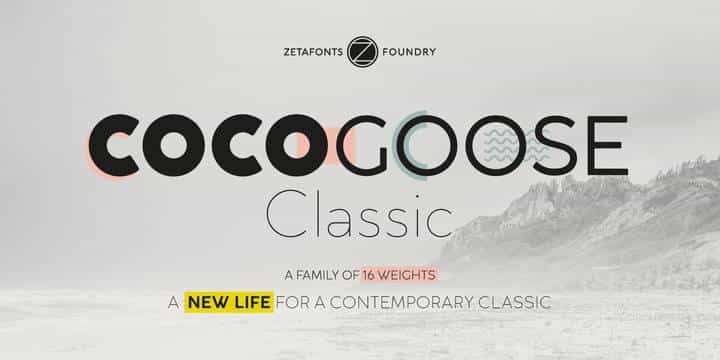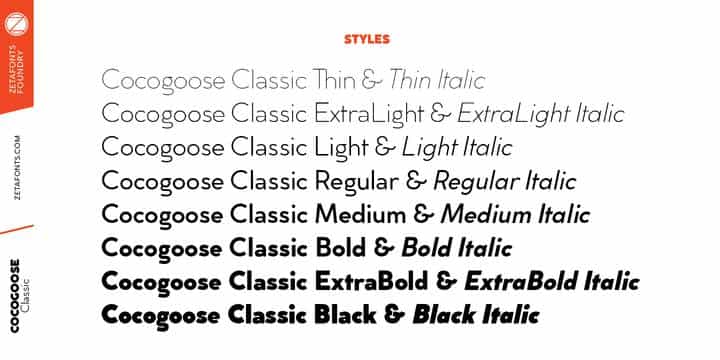
Cocogoose Classic Font Famly
The new font family. Cocogoose Classic Font Family is a fabulously designed typeface by Zetafonts. Introduced in 2012 as a display typeface by Cosimo Lorenzo Pancini, Cocogoose is one of the most beloved typefaces of Zetafonts. Of geometric proportions, low contrast, and slightly rounded corners, it is a sans serif typeface and the first in the Coco series, a current study in gothic typefaces variation across the ages.